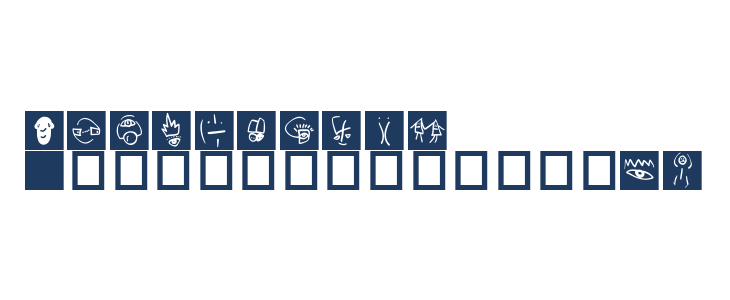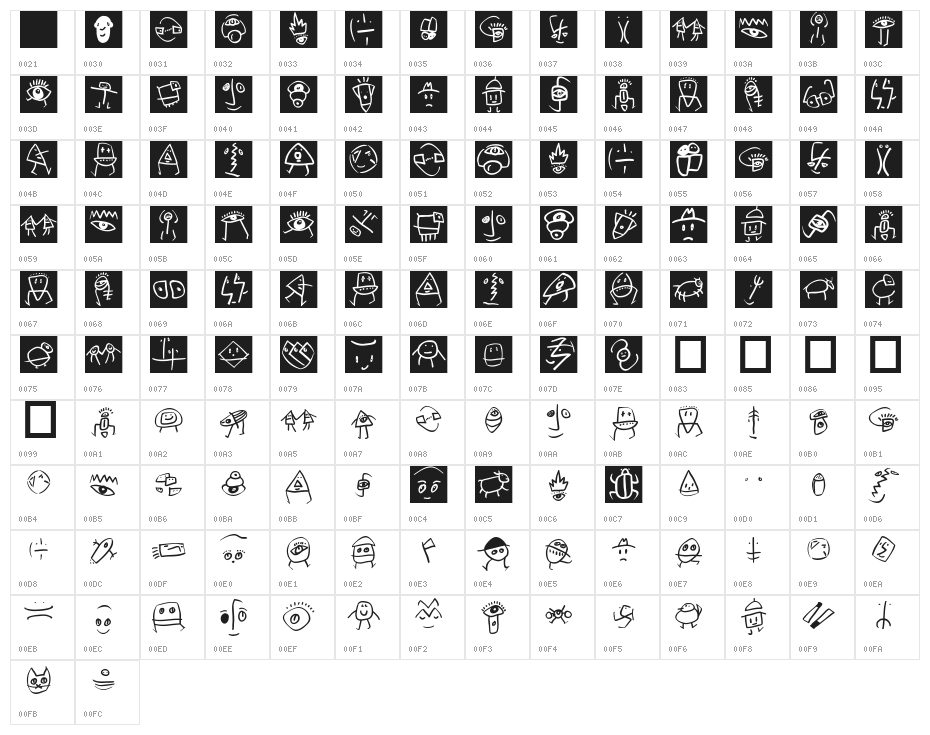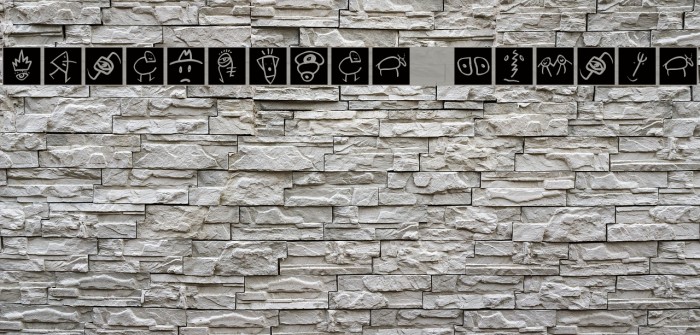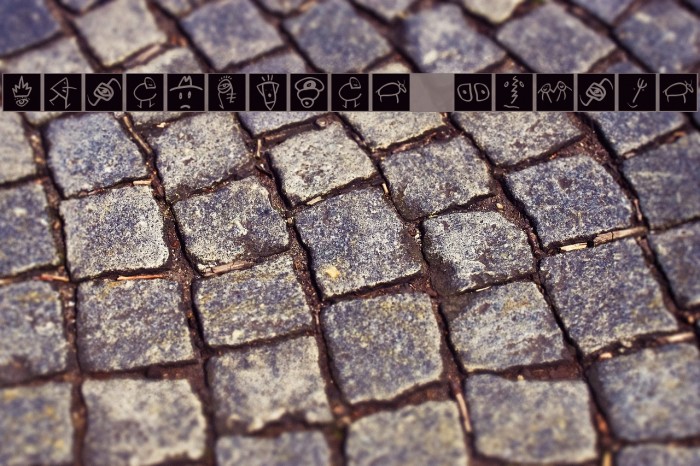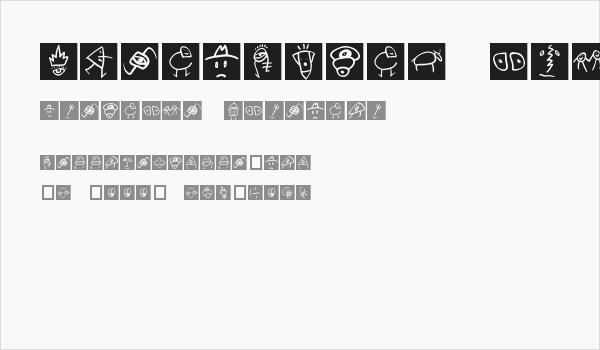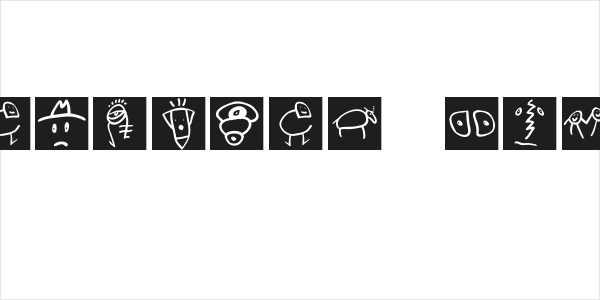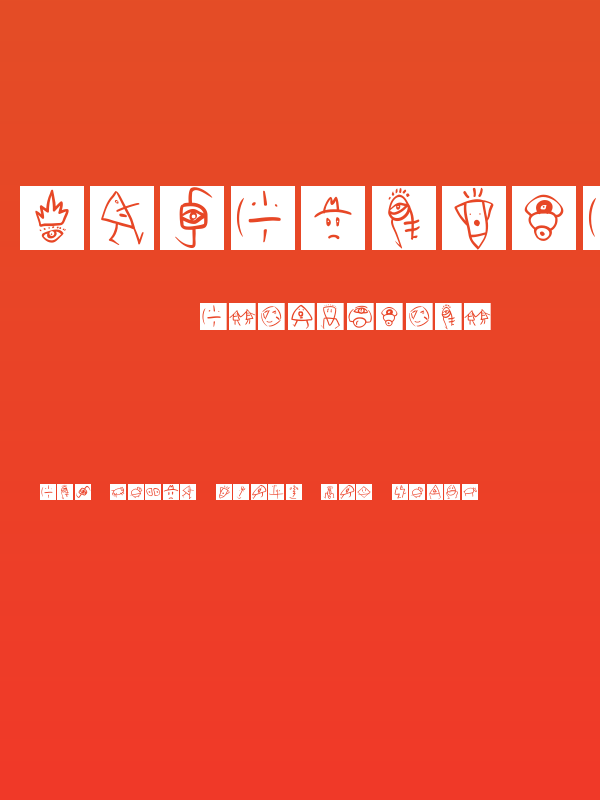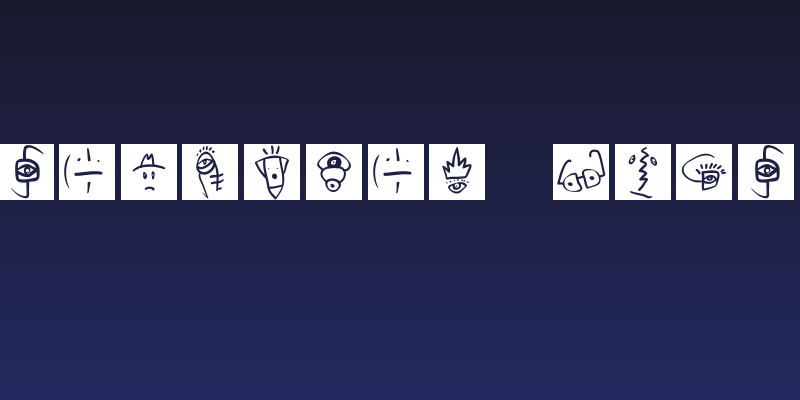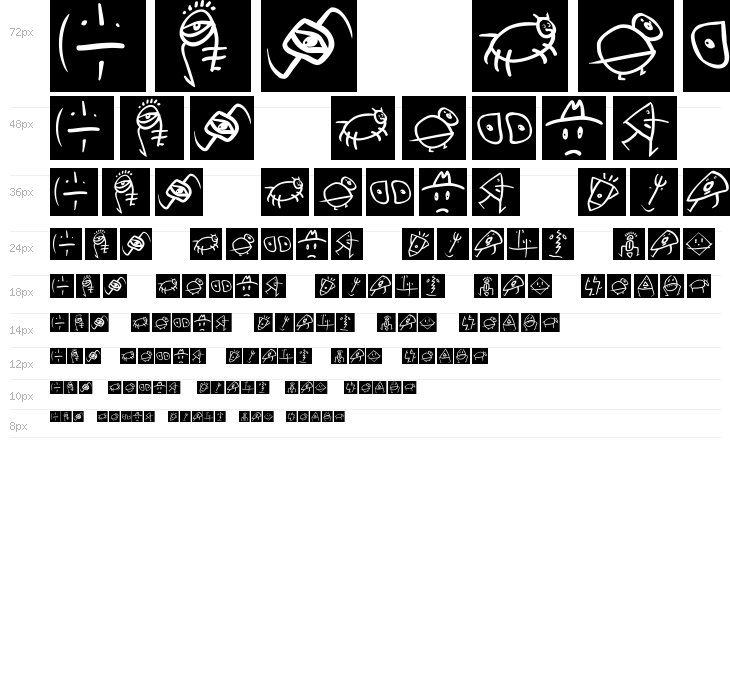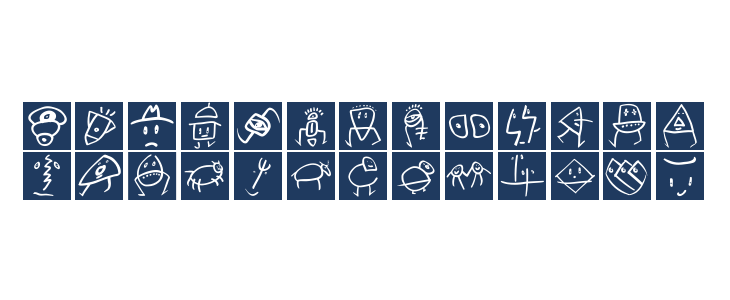
SketchBats invers Font
SketchBats invers Description
This is a decorative and playful font featuring a series of quirky, hand-drawn sketches. Each character is represented by a unique doodle, ranging from abstract shapes to whimsical faces and objects. The style is reminiscent of casual, spontaneous drawings, giving it a lively and informal feel. The characters are enclosed in square frames, adding a structured yet playful element. This font is ideal for creative projects that require a touch of humor and personality. The overall design is bold and eye-catching, making it suitable for attention-grabbing headlines or artistic designs.
| Use Case | Headlines, Artistic designs, Creative projects |
| Proposed Projects | Ideal for children's books, creative posters, playful branding, and artistic designs. |